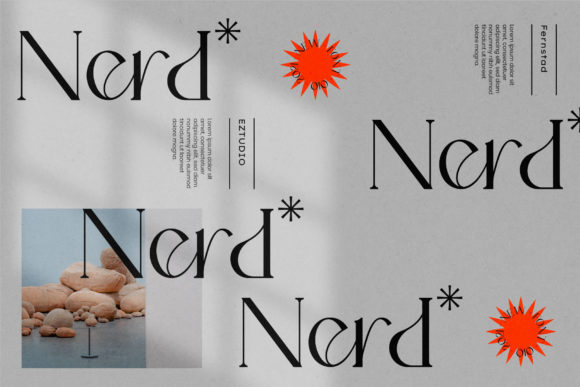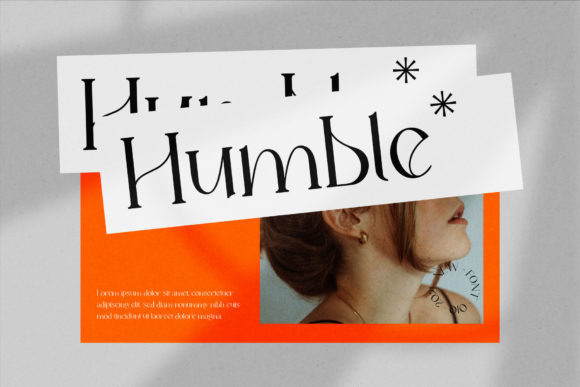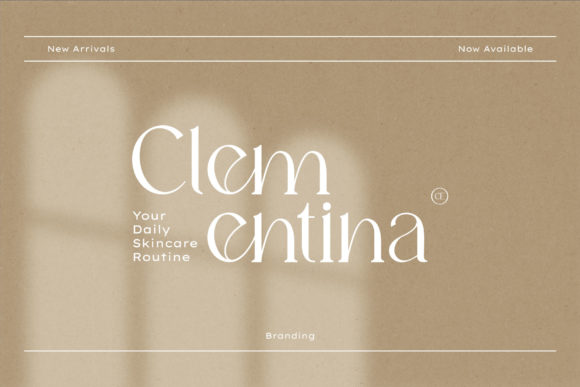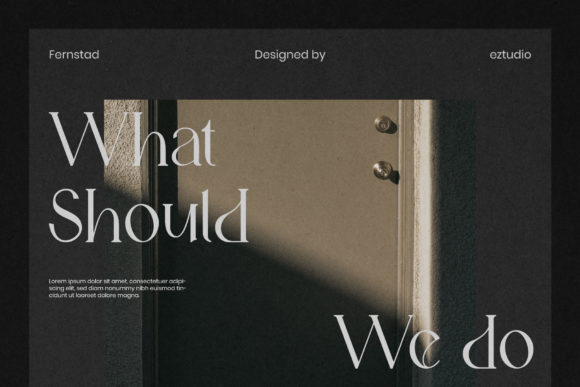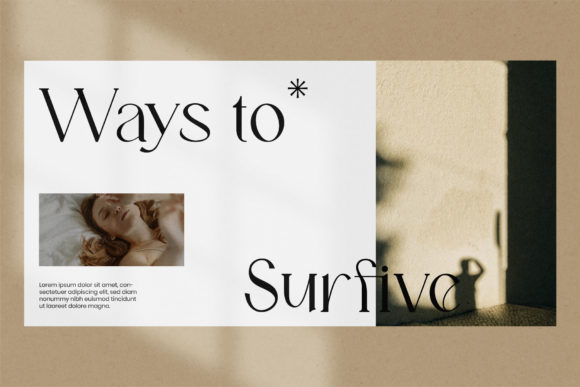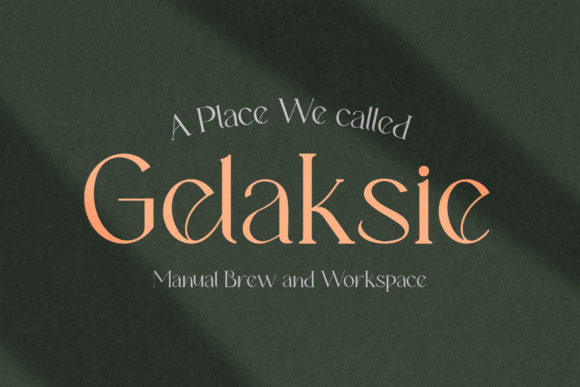
Fernstad Font: Elevate Your Design with Elegance and Sophistication
In the world of typography, a font can make or break a design. With the right font, you can convey your message with elegance, sophistication, and style. This is where Fernstad Font comes in – a thin, distinct, and elegant serif font that can elevate your design to new heights. In this article, we’ll explore the features, uses, and benefits of Fernstad Font, and why it’s a must-have for designers and crafters.
What is Fernstad Font?
Fernstad Font is a beautifully crafted serif font that exudes elegance and sophistication. Its thin lines and distinct features make it perfect for designs that require a touch of refinement. Whether you’re creating a logo, wedding invitation, or heading, Fernstad Font is the perfect choice. Its versatility and flexibility make it suitable for various purposes, including t-shirts, letterhead, signage, labels, news, posters, badges, and more.
Key Features of Fernstad Font
- Thin and Elegant: Fernstad Font features thin lines that give it a sleek and sophisticated look.
- Distinct Serif: The font’s serif features are distinct and well-defined, adding to its elegance and refinement.
- Versatile: Fernstad Font can be used for various purposes, from logos and wedding invitations to headings and posters.
- High-Quality: The font is crafted with high-quality design principles, ensuring it looks great in any design.
Uses of Fernstad Font
Fernstad Font is a versatile font that can be used for a wide range of design projects. Here are some of the most popular uses:
- Logos: Create a professional and elegant logo for your business or brand with Fernstad Font.
- Wedding Invitations: Add a touch of sophistication and romance to your wedding invitations with Fernstad Font.
- Headings: Use Fernstad Font to create stunning headings for your website, blog, or marketing materials.
- T-Shirts: Create stylish and elegant designs for t-shirts, hoodies, and other apparel with Fernstad Font.
- Signage: Use Fernstad Font for signage, banners, and posters to grab attention and convey your message.
Benefits of Using Fernstad Font
Using Fernstad Font in your design projects offers several benefits, including:
- Elegance and Sophistication: Fernstad Font adds a touch of elegance and sophistication to your designs.
- Versatility: The font’s versatility makes it suitable for various design projects and purposes.
- High-Quality: Fernstad Font is crafted with high-quality design principles, ensuring it looks great in any design.
- Easy to Read: The font’s clear and distinct features make it easy to read, even at small sizes.
Tips for Using Fernstad Font
To get the most out of Fernstad Font, here are some tips to keep in mind:
- Use it for Headings: Fernstad Font is perfect for headings, titles, and subtitles.
- Pair it with Other Fonts: Experiment with pairing Fernstad Font with other fonts to create a unique and stylish look.
- Adjust the Size: Adjust the font size to suit your design needs, but keep in mind that Fernstad Font looks great at larger sizes.
- Experiment with Colors: Try out different colors and color combinations to find the perfect look for your design.
Fernstad Font is a beautifully crafted serif font that offers elegance, sophistication, and versatility. With its thin lines, distinct features, and high-quality design principles, it’s perfect for a wide range of design projects. Whether you’re a designer or crafter, Fernstad Font is a must-have in your font collection. So why wait? Download Fernstad Font today and elevate your designs to new heights!